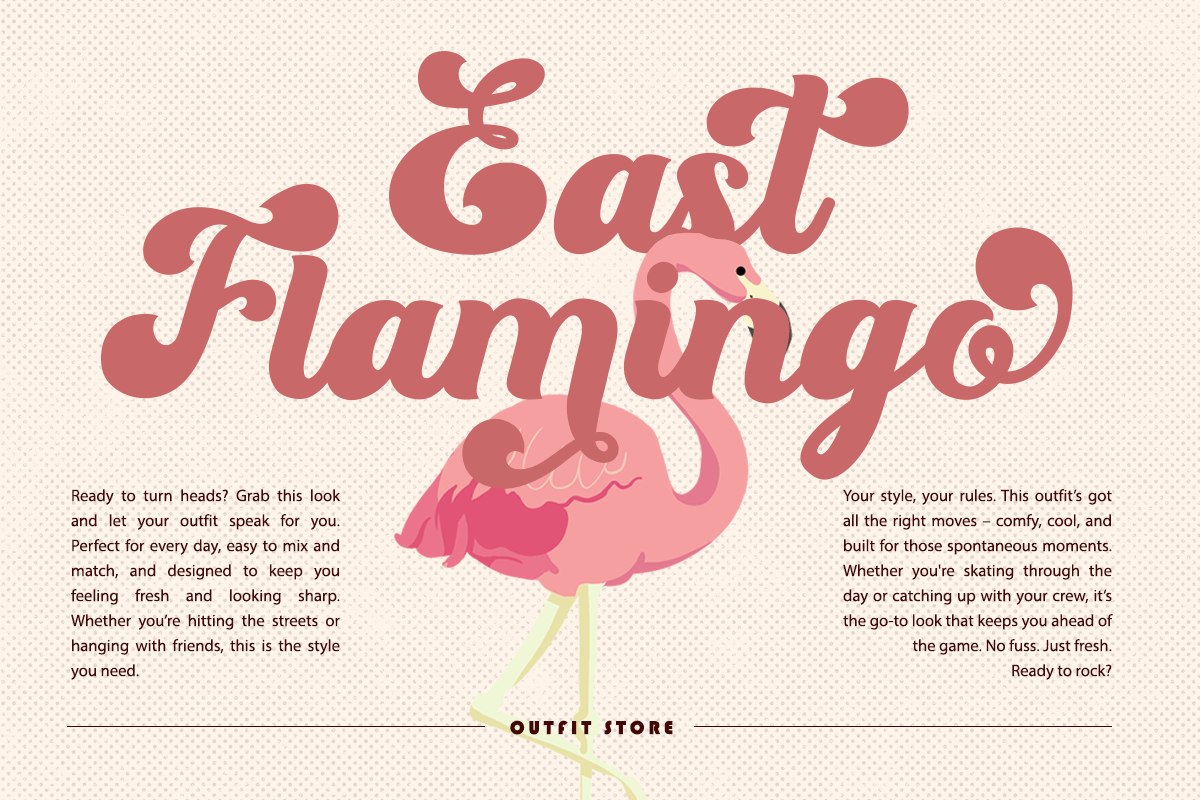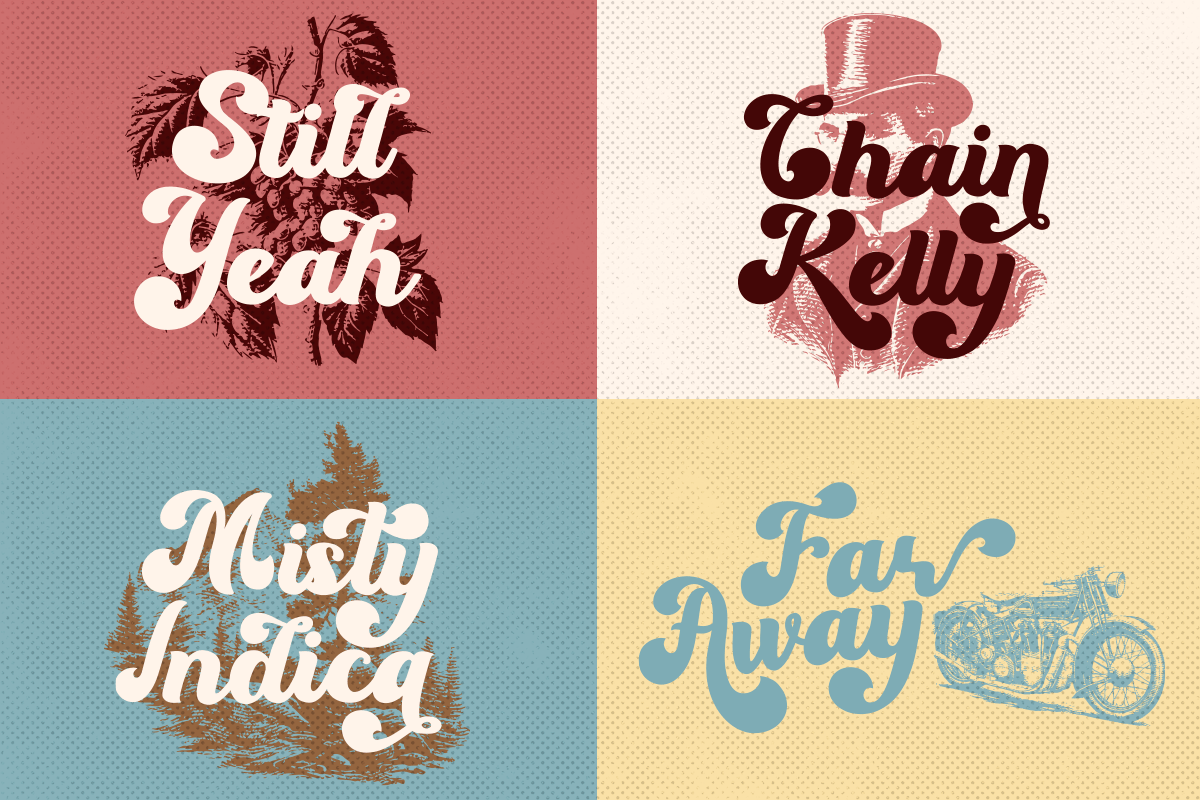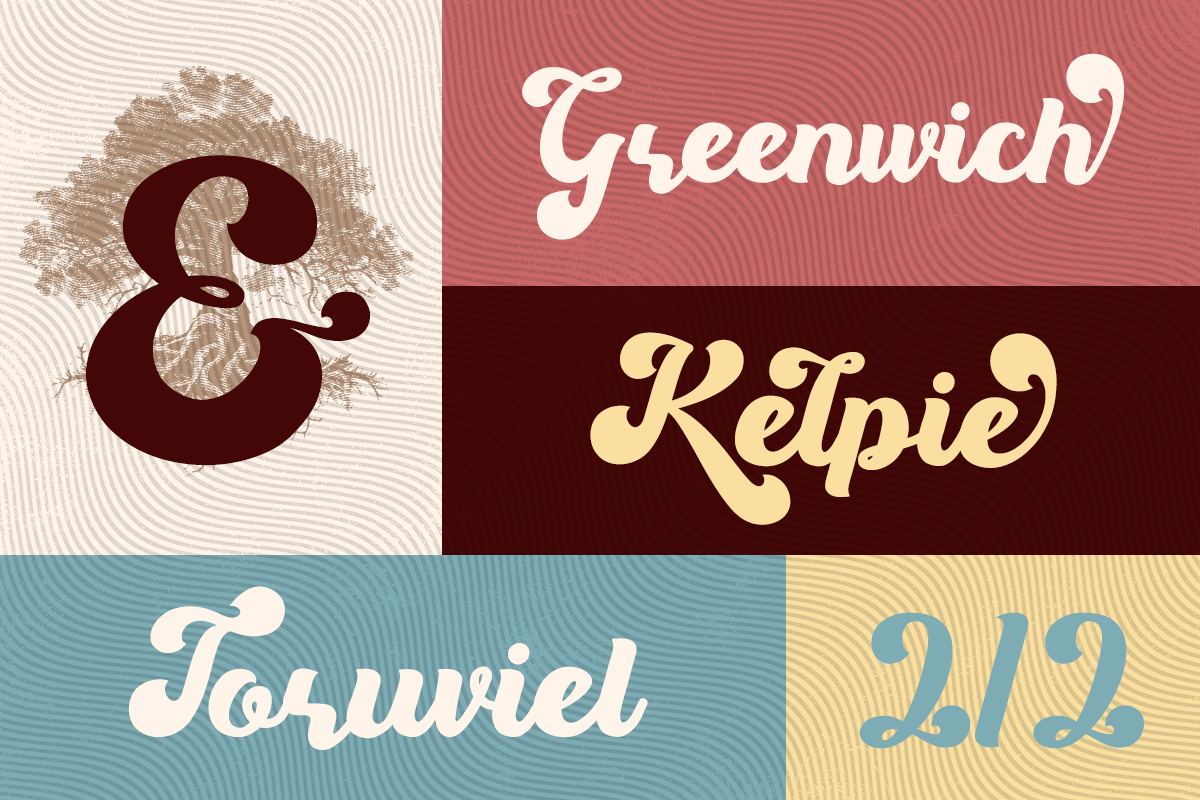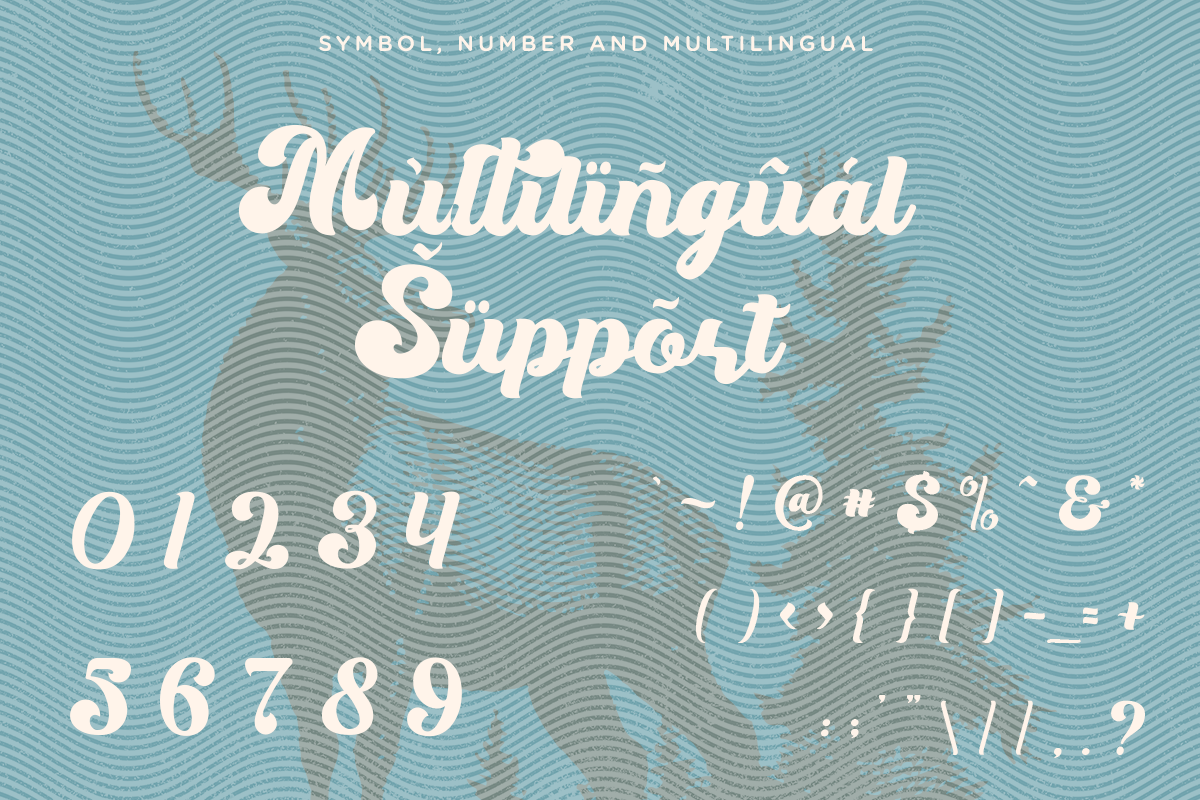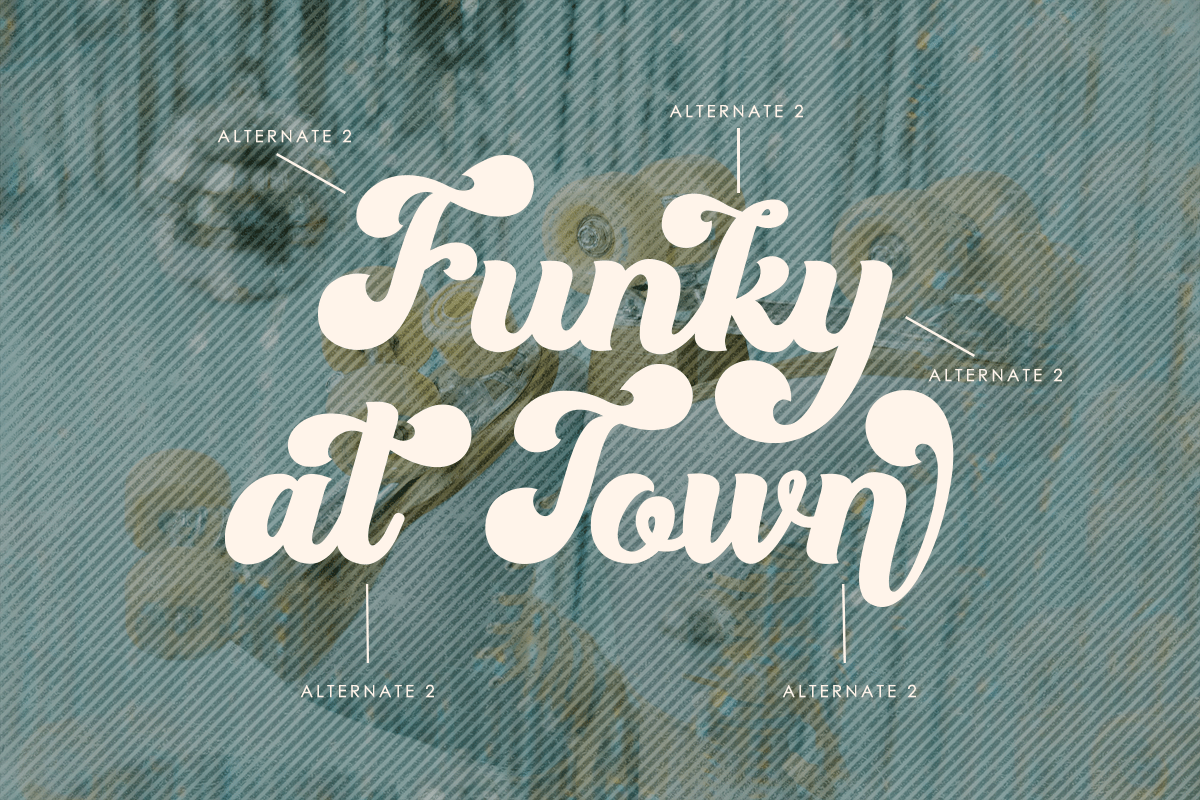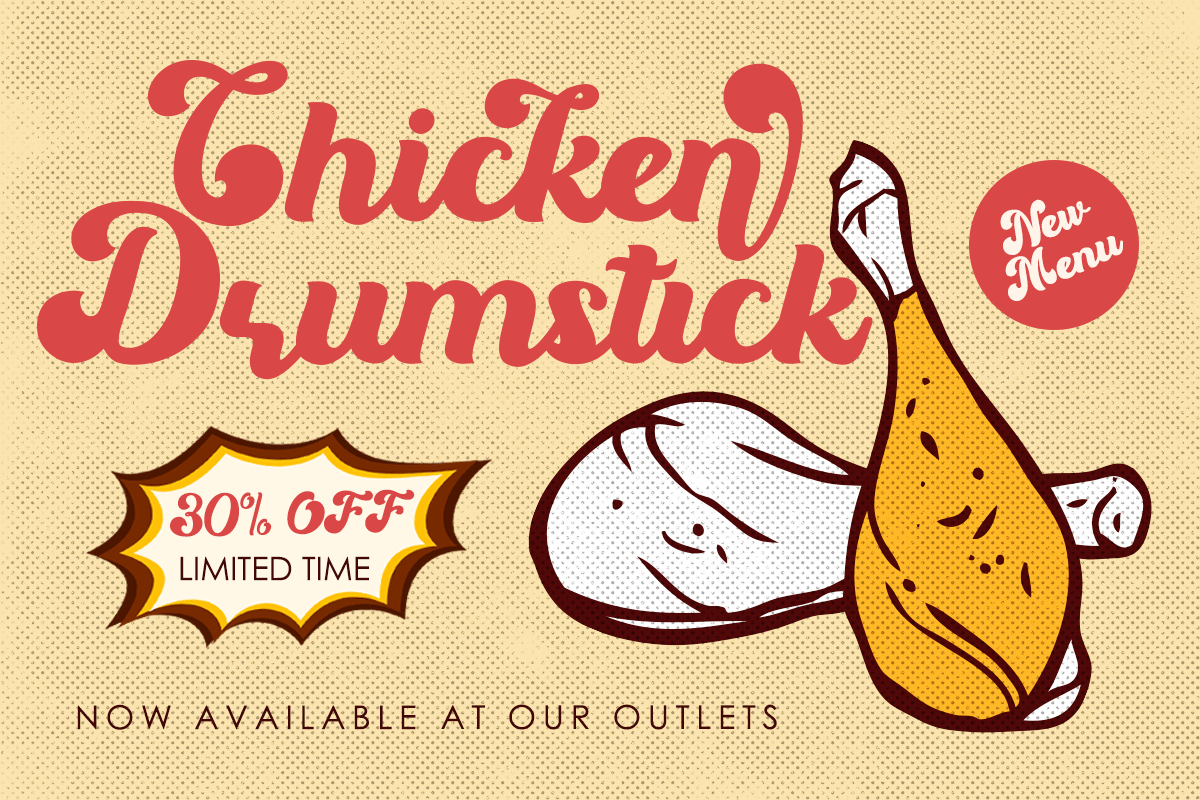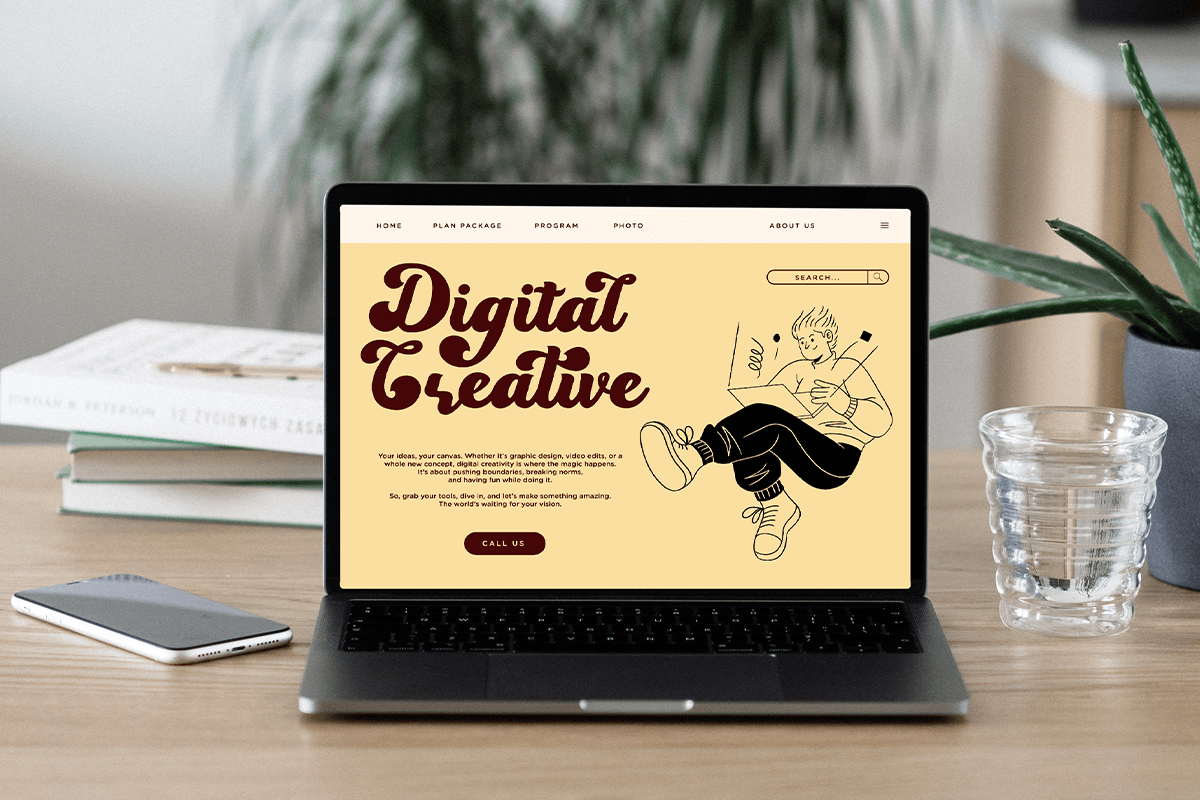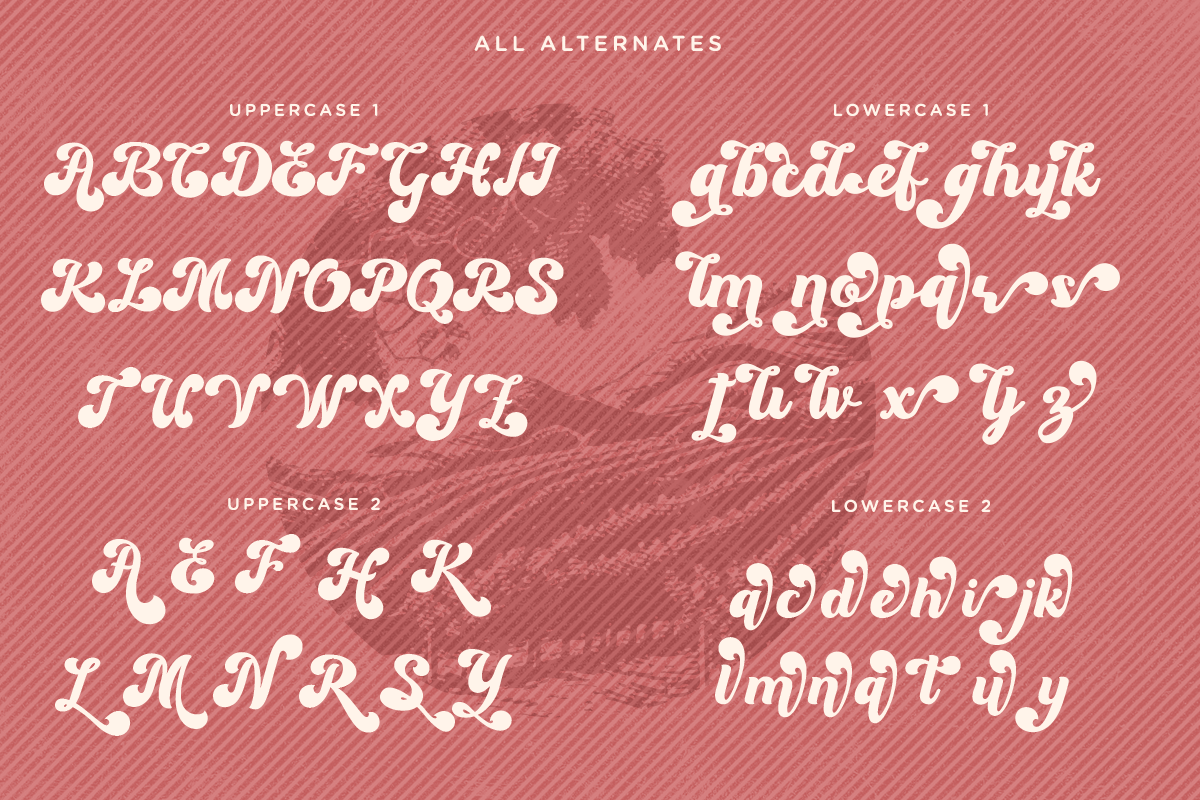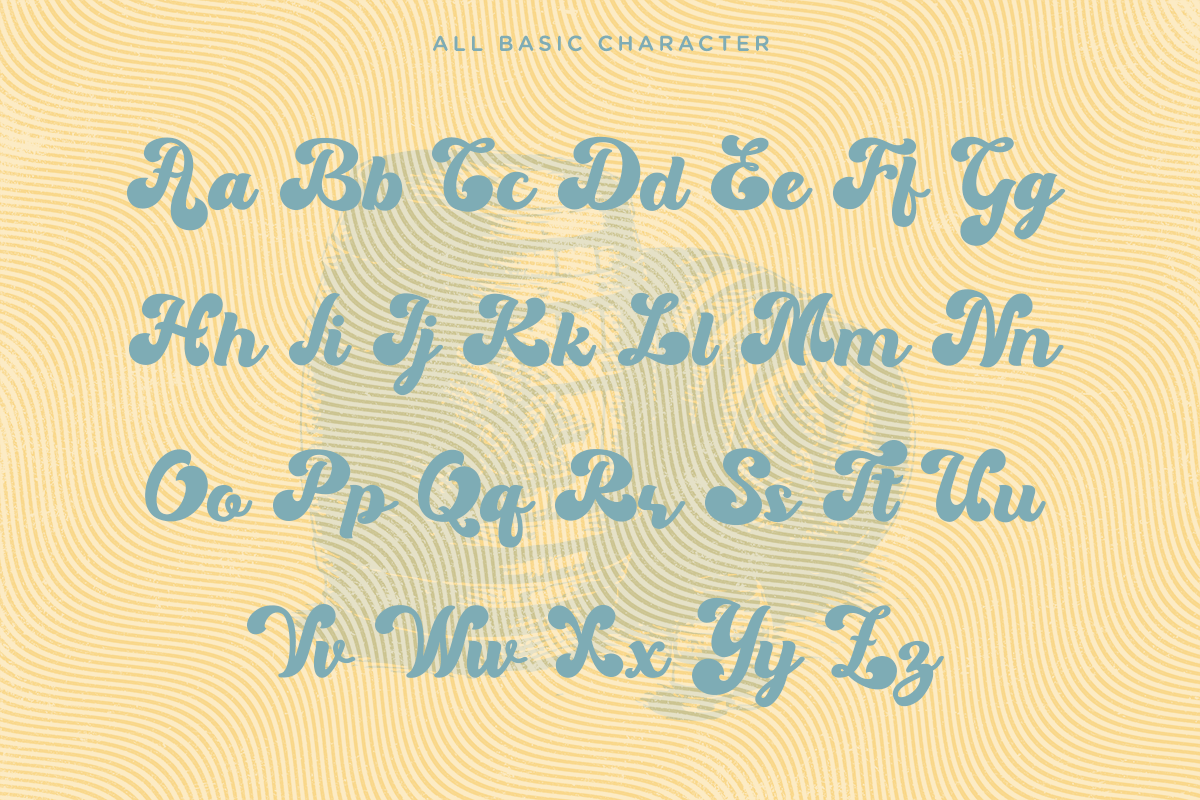
Party Fantasia – Retro Script Font
Party Fantasia is a playful retro script font inspired by vintage sign painting, groovy typography, and nostalgic pop culture. Featuring bold flowing strokes, charming swashes, and expressive handwritten curves, this typeface captures the joyful spirit of the 70s while maintaining excellent readability. Its lively personality makes it perfect for creating eye-catching branding, cheerful headlines, and memorable display typography.
Designed for party invitations, cafés, restaurants, food packaging, apparel, lifestyle brands, merchandise, stickers, posters, social media, product labels, advertising, and editorial projects, Party Fantasia delivers outstanding versatility across both print and digital media. Whether you’re designing playful logos, vibrant packaging, promotional graphics, or retro-themed branding, this font brings warmth, energy, and authentic vintage character to every project.
Party Fantasia includes uppercase and lowercase characters, decorative swashes, stylistic alternates, multilingual support, numerals, punctuation, and symbols, giving designers complete creative freedom. From boutique branding and festival promotions to food packaging and fashion collections, Party Fantasia is the perfect retro script font for projects that celebrate creativity, fun, and timeless nostalgic style.
– Stylistic alternates
– Uppercase, Lowercase & Ligatures